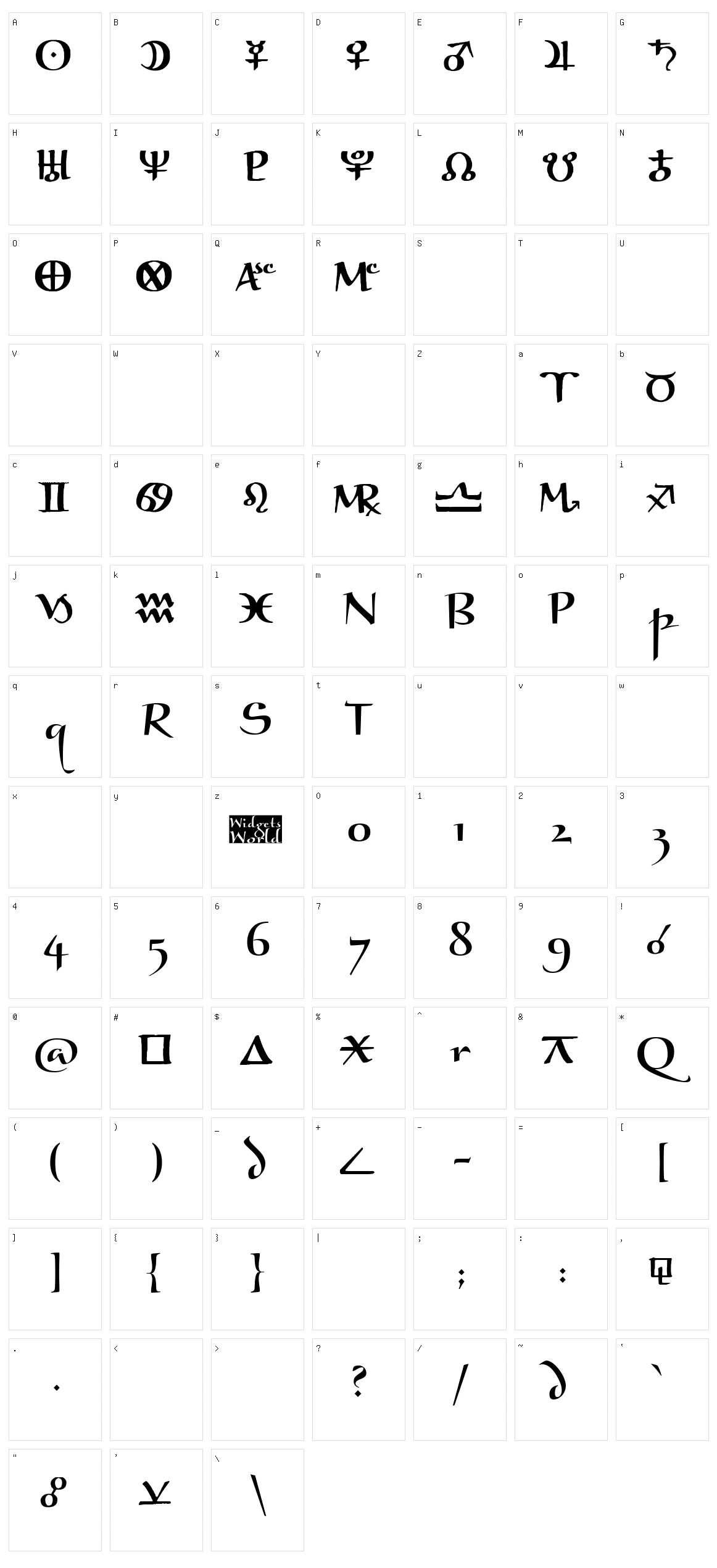
Astro Ganza
Designed by: Jason Davies
This is the 1st release of AstroGanza.
It is the 3rd font in the Astrological Font Series.
About the Typeface:
AstroGanza was designed as a cross between the 1st & 2nd font in the astrological series.
Designed in a semi handwritten / weathered style initially for my own personal use.